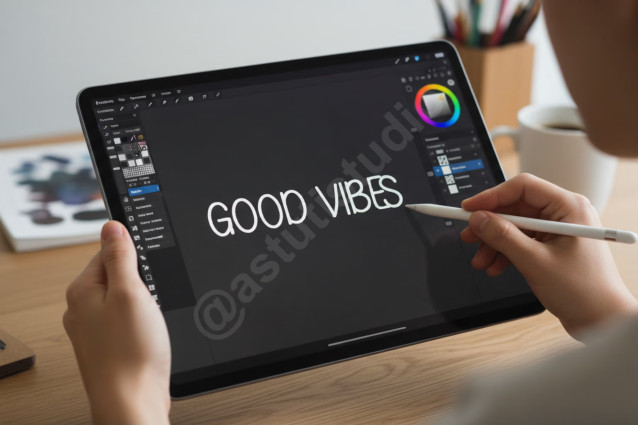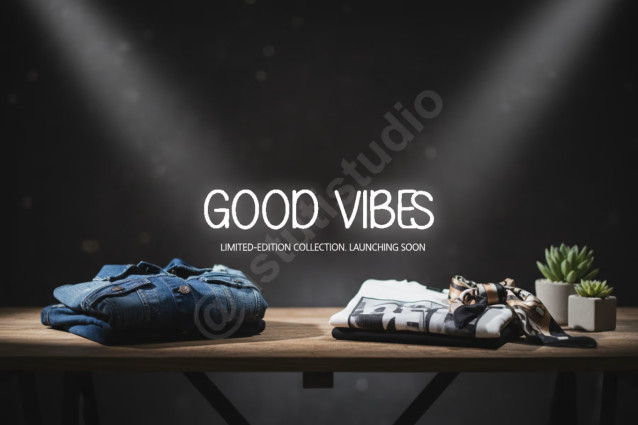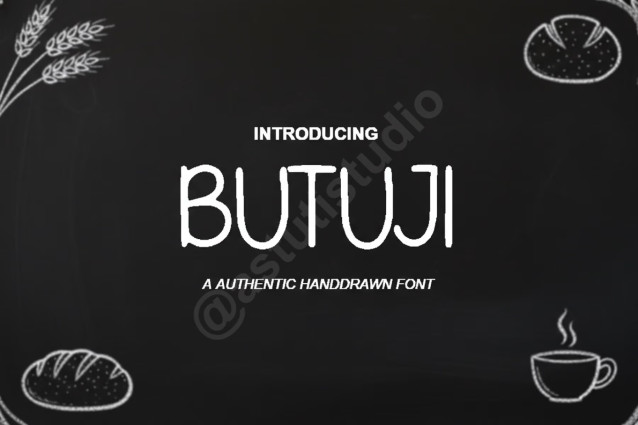
Butuji Font
Butuji is a refined modern serif typeface designed for the discerning creative. Its meticulously crafted letterforms strike a perfect balance between classic elegance and contemporary minimalism, making it the definitive choice for projects demanding sophistication. Inspired by the sharp lines of high-end fashion and architectural precision, Butuji ensures your designs—from subtle logotypes to commanding headlines—always convey prestige and luxury.
Whether you are crafting a high-end brand identity or a minimalist editorial layout, this font provides the versatility and professional polish your work deserves.
• Comprehensive Uppercase and Lowercase character sets
• Numerals and standard punctuation
• Extensive Multilingual support for global reach
• Smooth kerning and professional spacing
Optimized Use Cases
• Branding and Identity: Create memorable logos and brand marks.
• Wedding Stationery: Perfect for elegant invitations and sophisticated event menus.
• Editorial Design: Ideal for magazine headers, book covers, and stylish layouts.
• Product Packaging: Add a luxury touch to your labels and physical products.
• Social Media: Stand out with sophisticated typography for graphic overlays.